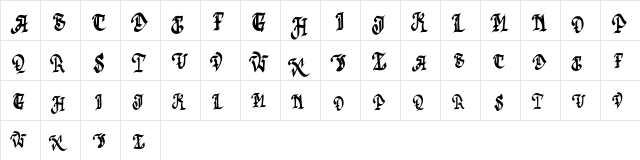
Acude FREE Regular
Design Context for Acude FREE Typeface
Acude FREE is a composed and adaptable typeface that performs quietly and consistently across a wide range of design contexts.